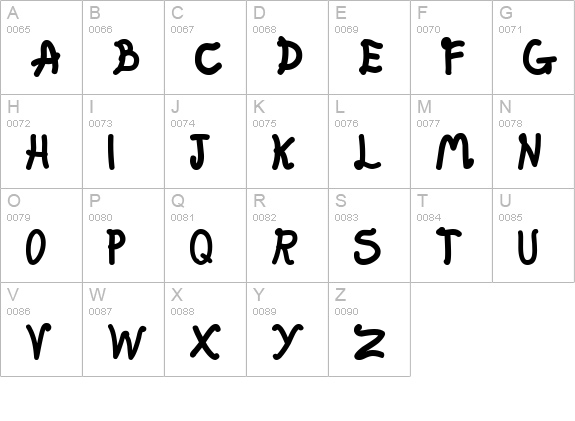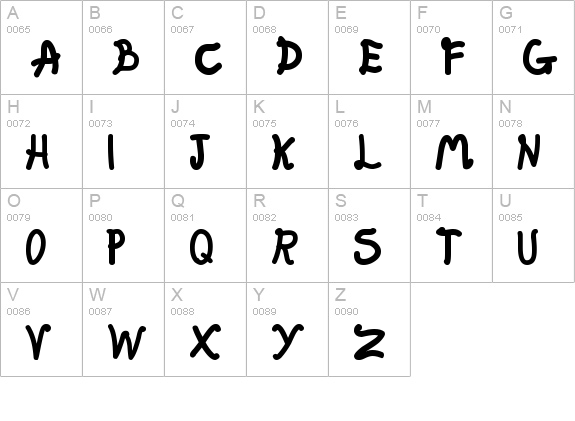
The Fat Fairy font is a whimsical and playful typeface that exudes charm and character. Its rounded edges and bold strokes give it a friendly and inviting appearance, perfect for adding a touch of magic to any project. Whether you're designing a children's book, creating a fun logo, or crafting eye-catching posters, the Fat Fairy font is sure to captivate your audience. The best part? This delightful font is available for free download at FontsMarket.com. So, go ahead and bring a bit of enchantment to your designs with the Fat Fairy font today!